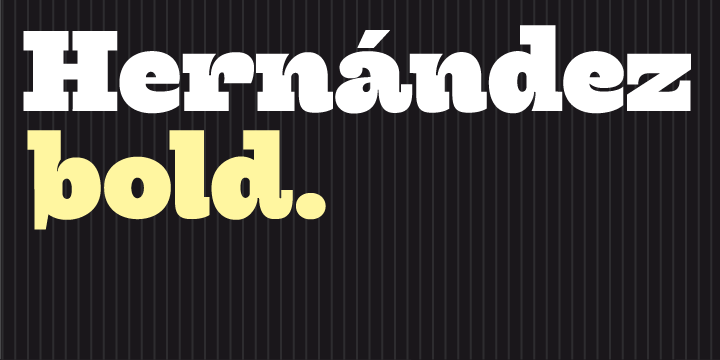
Hernandez bold is a slab serif display font. It has a unique feature, it gives the possibility of composing words in different rhythms. It has a big number of “alternates”, which allows the user various combinations within a text.
It’s a captivating font in every detail, which makes a paragraph look graceful with a lot of attitude.